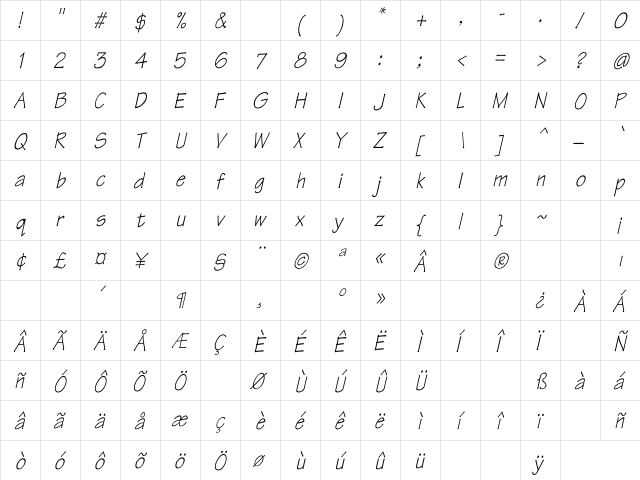
Tekton Th italic Italic Font Preview
Tekton Th italic Italic
Design Context for Tekton Th italic Typeface
Tekton Th italic is a composed and adaptable typeface that performs quietly and consistently across a wide range of design contexts. The slanted form adds forward momentum and visual energy.
Pro Tip: Try Tekton Th italic for annotation and caption copy alongside an upright companion — the contrast in angle creates a dynamic but ordered typographic system.